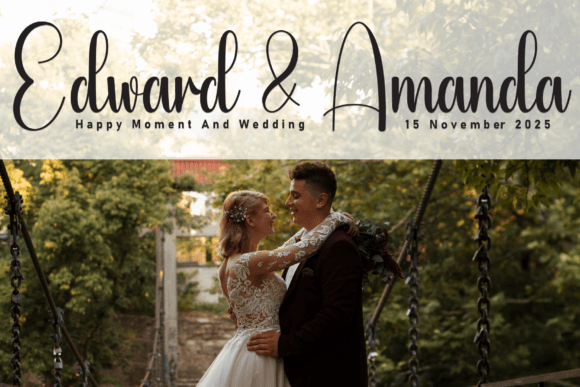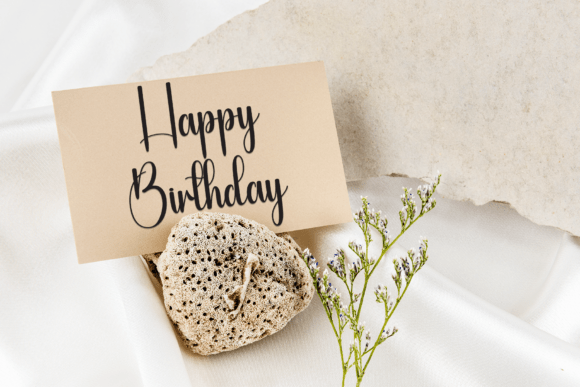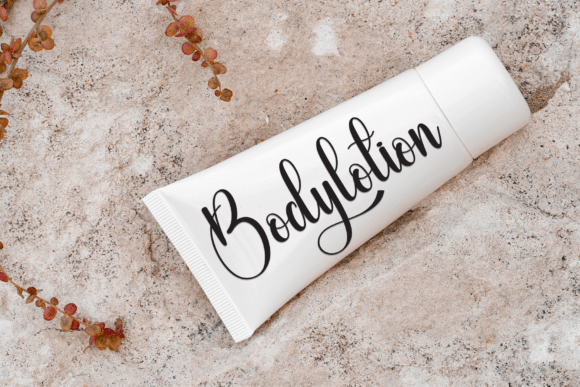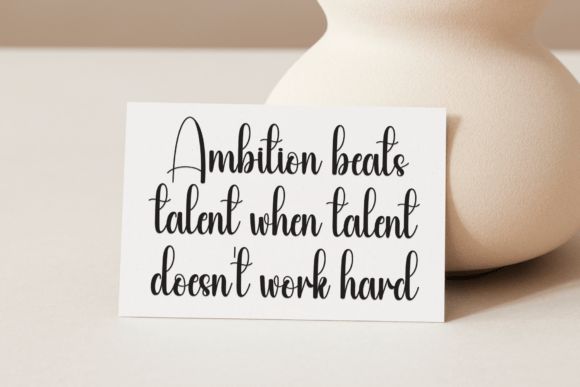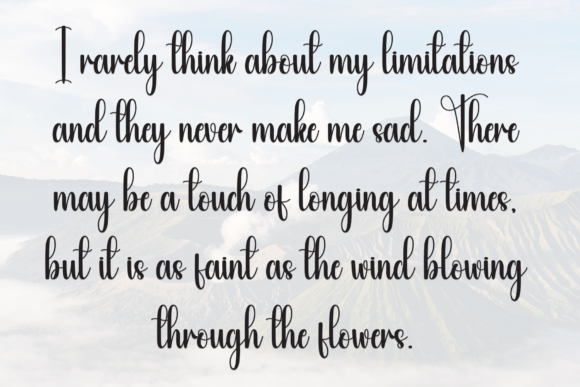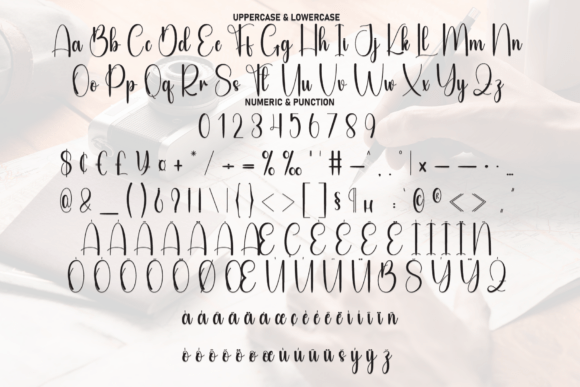
Unleashing the Art of Handwritten Charm: Introducing the Autography Font
As a designer, have you ever found yourself stuck in a sea of generic fonts, longing for that special something that sets your project apart? You know, that moment when you pick up a pen and paper, and the words start flowing in a beautiful, effortless dance? That’s exactly the magic that the Autography Font brings to your designs.
This stylish handwritten script font is designed to capture elegance and playfulness in every stroke, making it perfect for invitations, branding, and social media. With flowing curves and a natural rhythm, Autography Font adds a personal, charming touch to any project, bringing warmth, sophistication, and creativity to the table.
Whether you’re a seasoned designer or just starting out, Autography Font is a valuable addition to your toolkit, offering a unique and versatile solution for any project that demands a touch of handwritten charm.
Autography Font Key Features
- Font Family: Autography Font offers a unique, handwritten style with a variety of styles and weights, including bold, regular, and light.
- Character Count: The font contains over 500 characters, including uppercase and lowercase letters, punctuation marks, and numbers.
- Unique Characteristics: The font features a distinctive, hand-drawn feel with subtle imperfections, giving it a personal and creative touch.
Autography Font Review
Overall, I found the Autography Font to be a solid, yet unremarkable choice for typography. ✨ The font’s organic feel and hand-drawn aesthetic can be quite charming, making it suitable for projects that require a more personal touch.
Here are some of the font’s strengths:
- ✨ Beautifully crafted letterforms that evoke a sense of hand-drawn charm
- ✨ Effective for use in projects that require a more casual, approachable tone
- ✨ Supports a wide range of languages, making it a good choice for global projects
- ⚠️ The font can be quite dense, which may make it difficult to read at smaller font sizes
- ⚠️ The letterforms can be somewhat irregular, which may not be suitable for projects that require precise typography
Overall, I would give the Autography Font a solid 3.5 out of 5 stars. While it’s not a bad choice for typography, it’s not particularly groundbreaking or innovative either. If you’re looking for a font that can add a touch of personality to your project, the Autography Font might be worth considering. However, if you need precise typography or a more formal tone, you may want to look elsewhere.